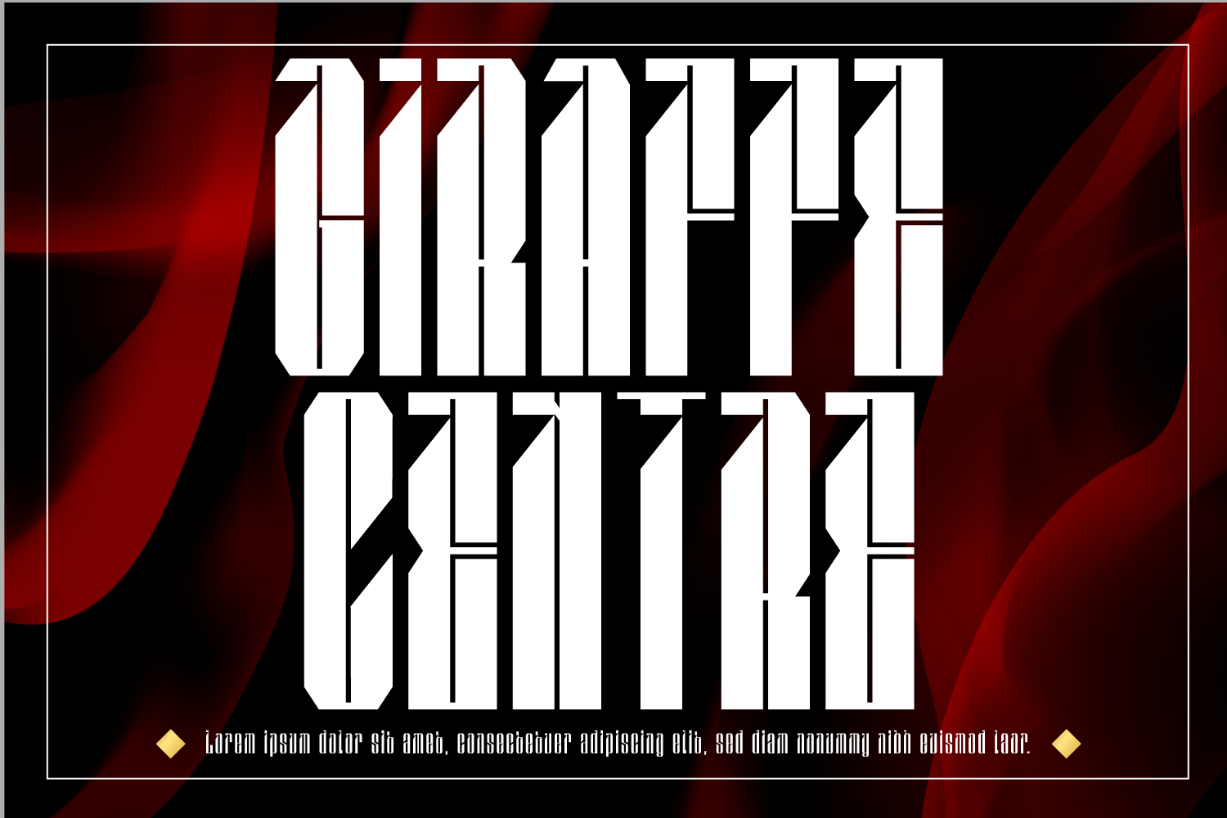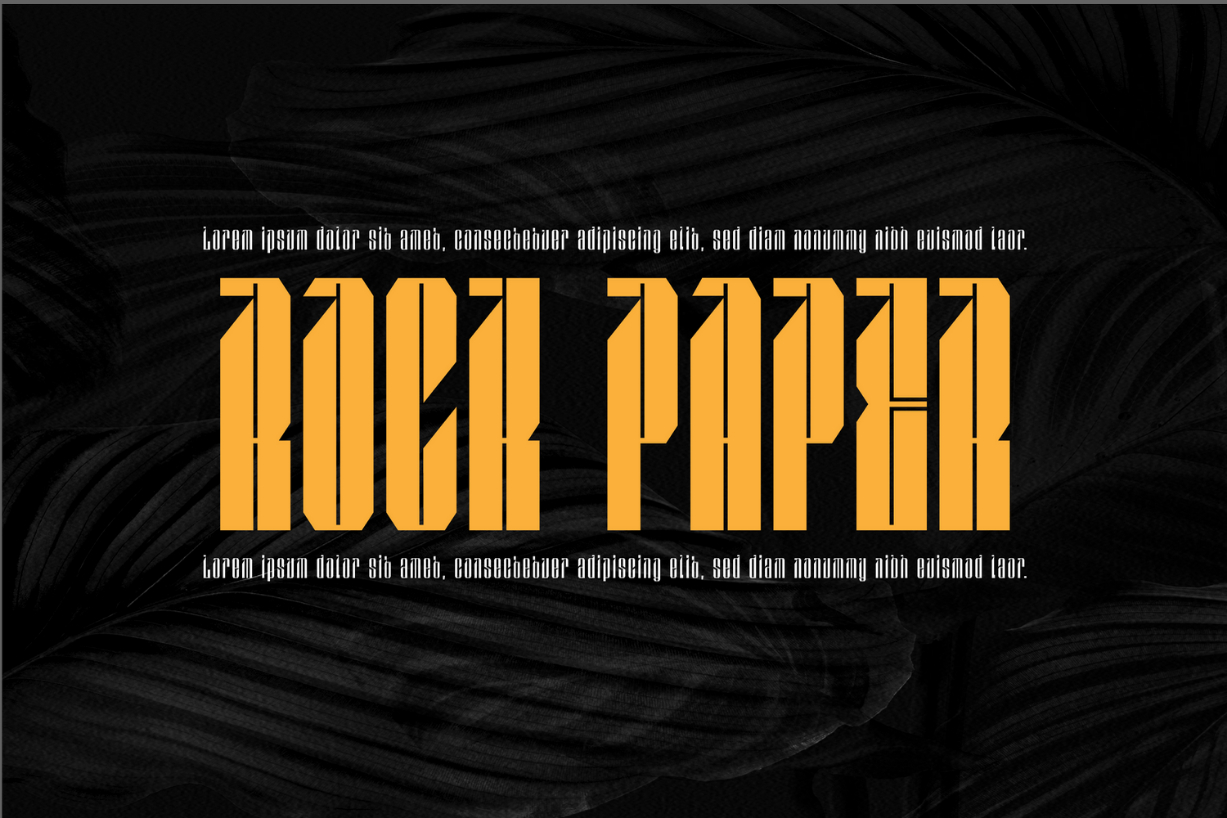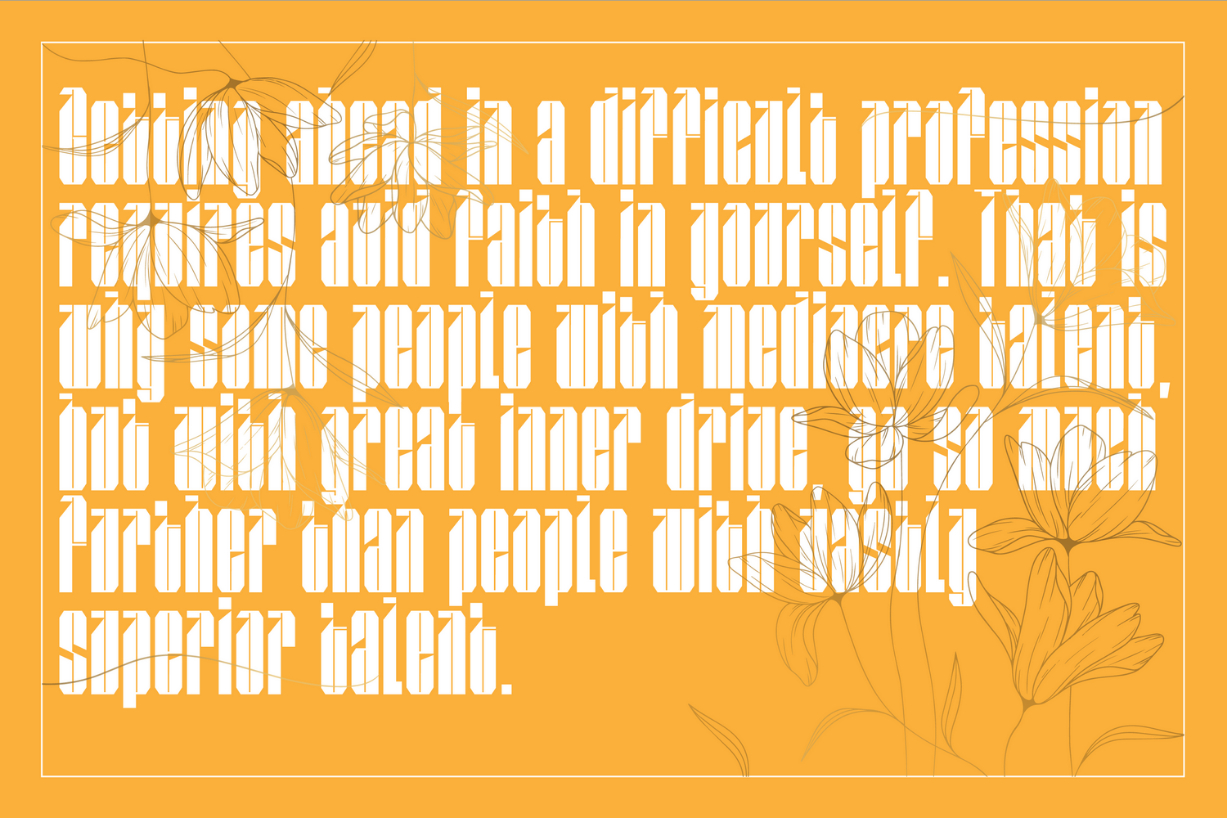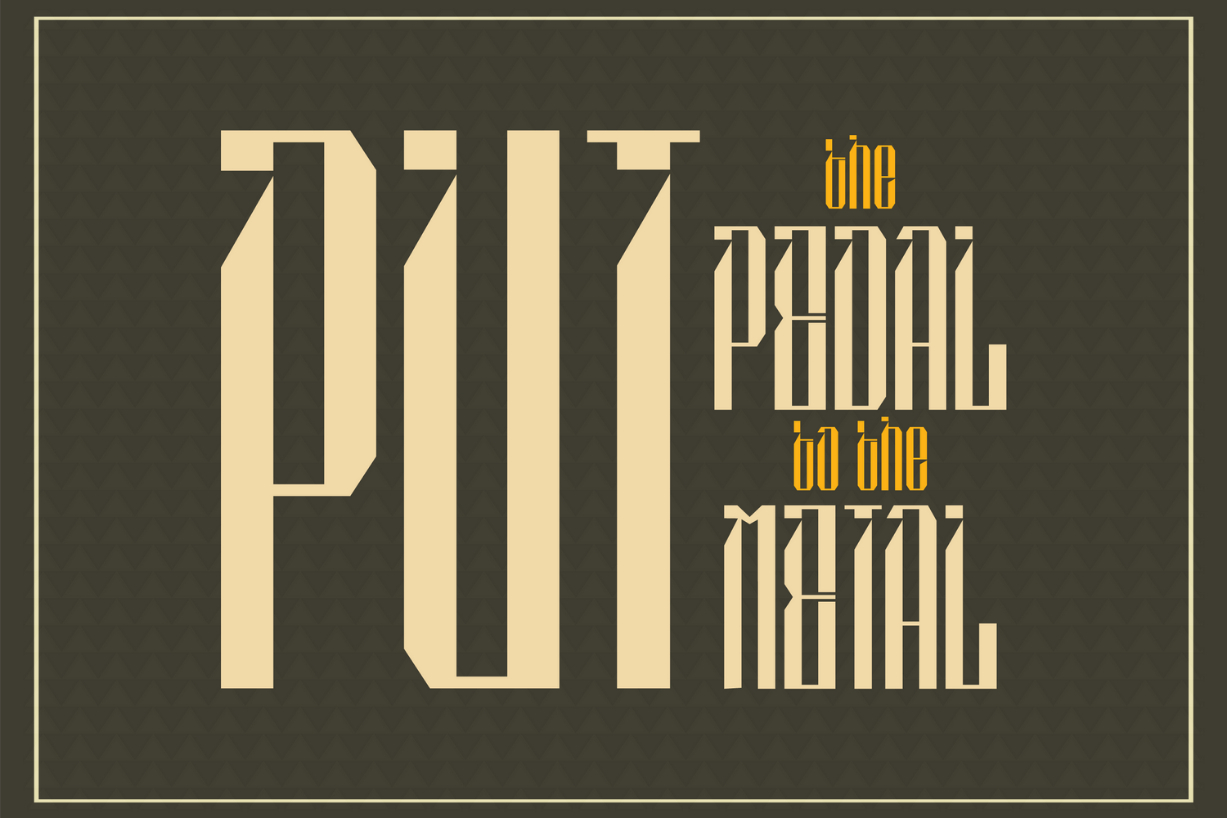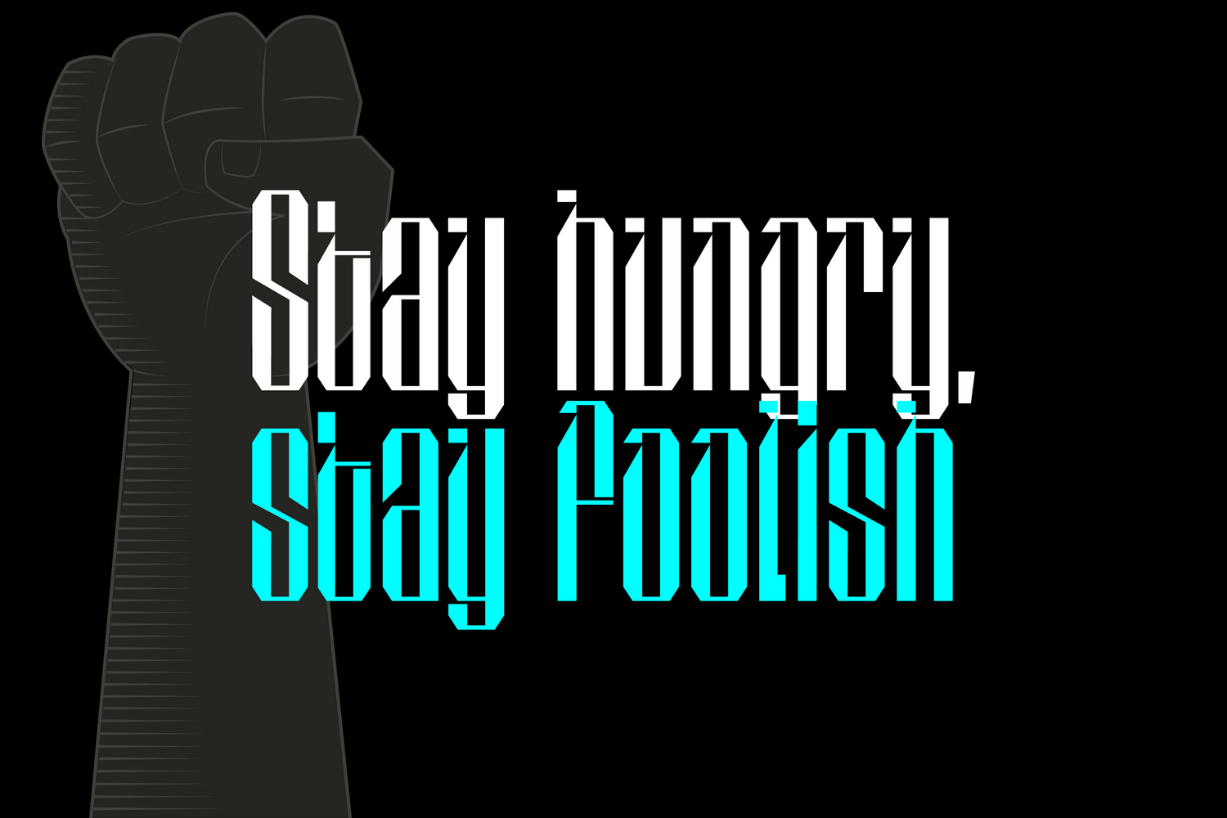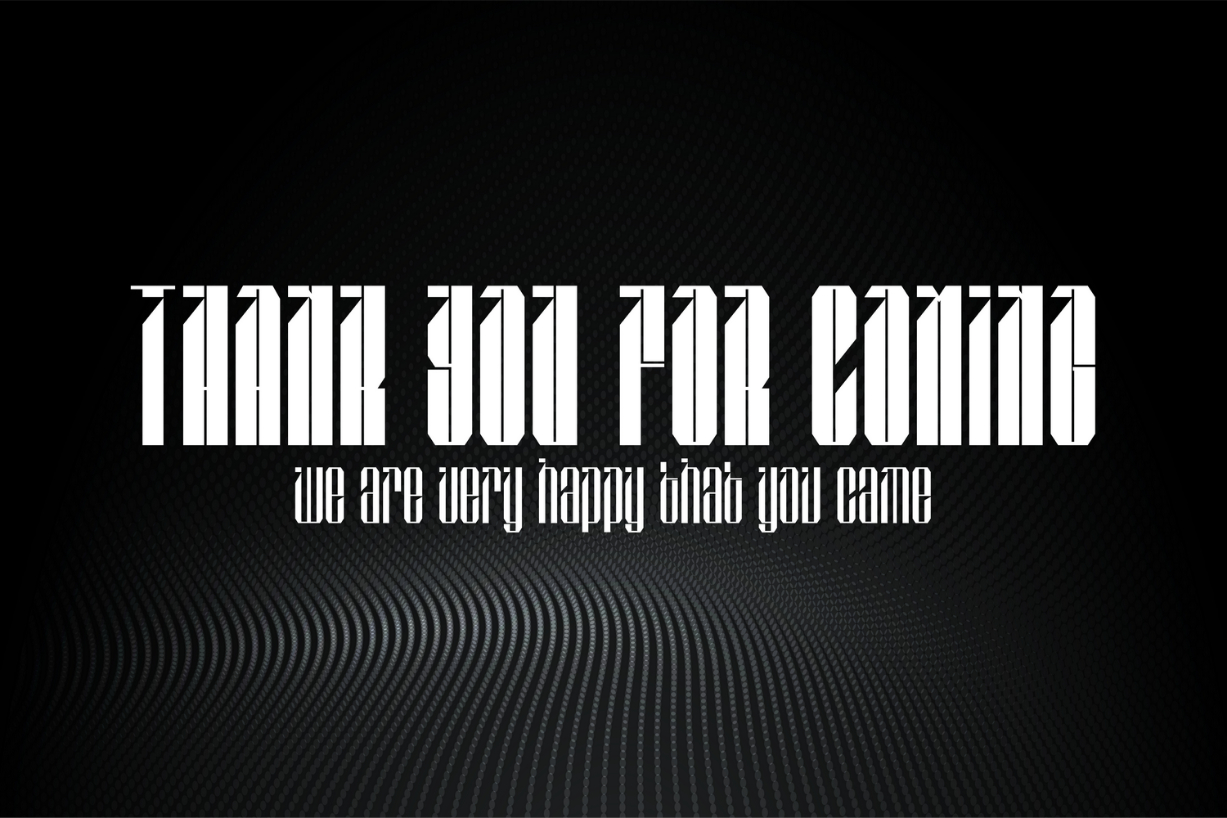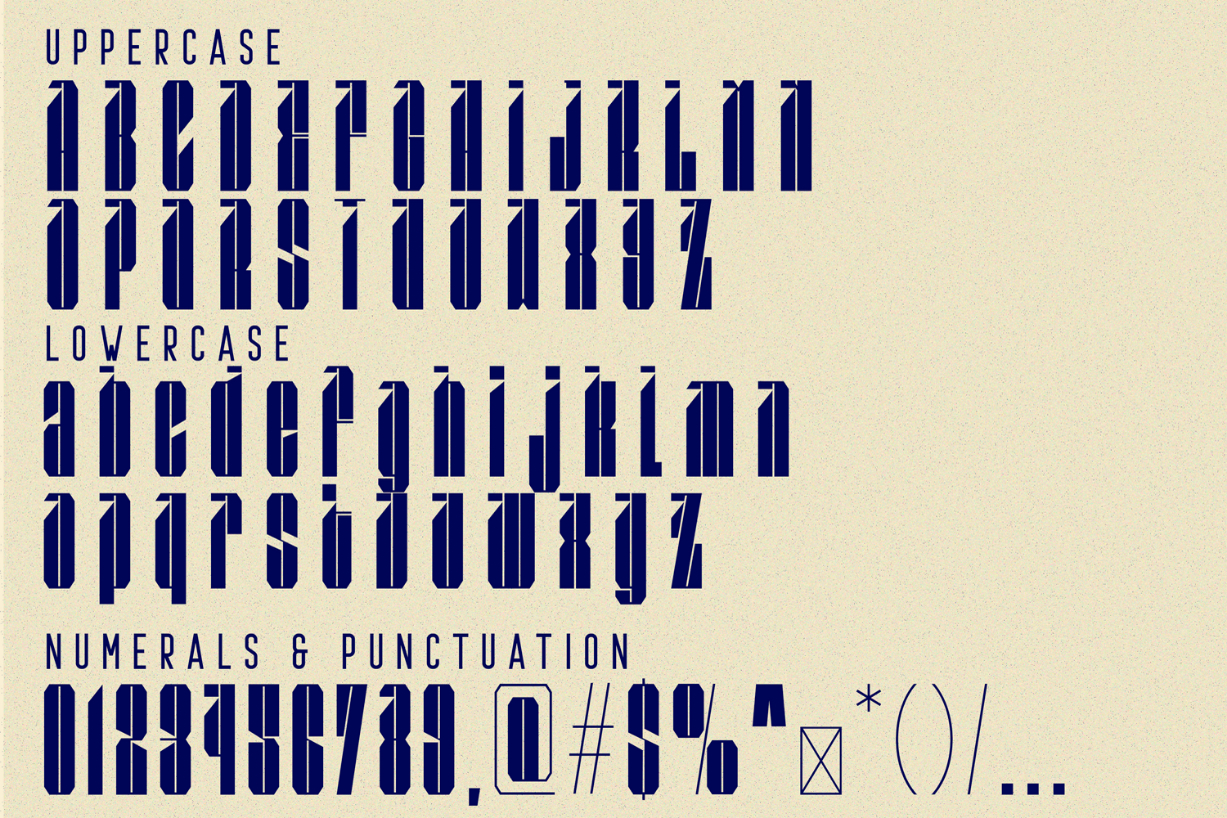
Giraffe Centre Font
About Giraffe Centre Font
Giraffe Centre is a modern, sharp, condensed black letter font. With bold consistent strokes, fun character with a bit of ligature, and alternates to give you extra creative work. With unique asymmetric elements, this font can be used in a vast variety of projects, such as logos & branding, posters, magazines, tattoos, etc.